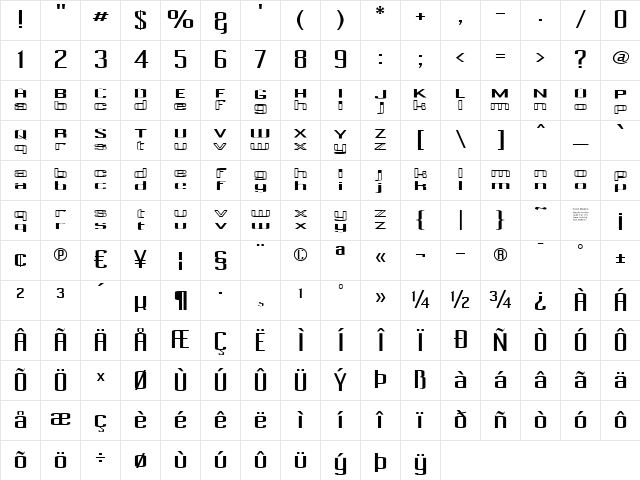
Pecot combined Regular Free Font
Pecot combined Regular
Design Context for Pecot combined
Pecot combined is a composed and adaptable typeface that performs quietly and consistently across a wide range of design contexts.